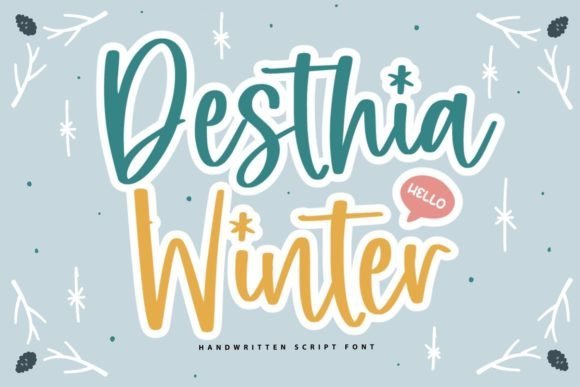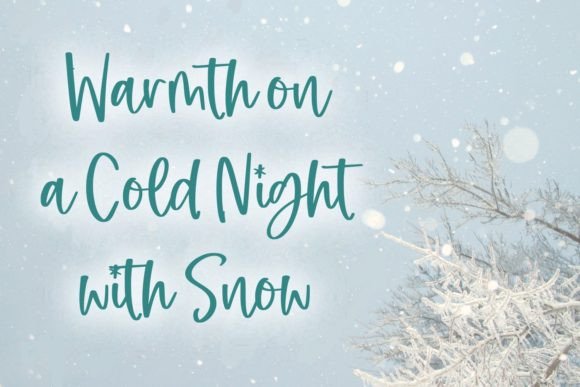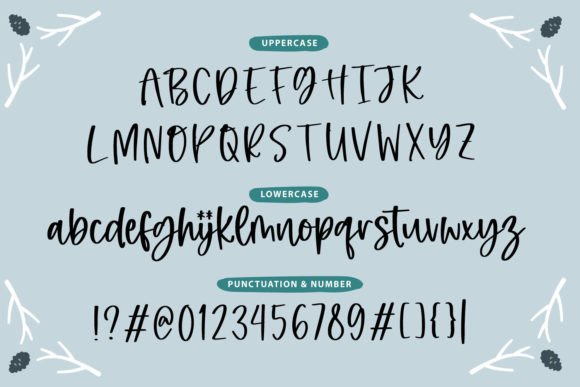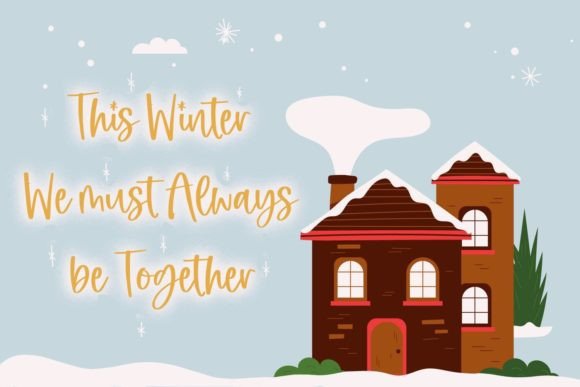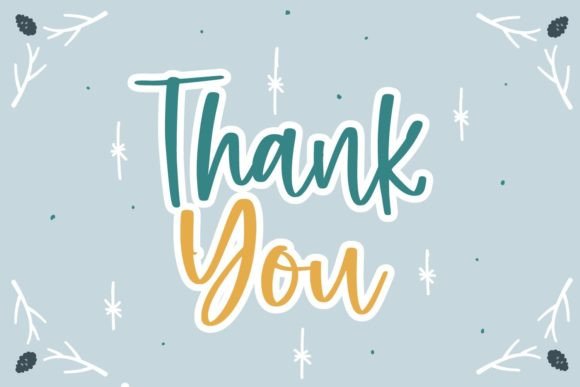
Unleash the Magic of Desthia Winter Font
Have you ever been stuck on a design project, staring at a blank page, and suddenly, the perfect idea strikes? The words flow effortlessly, and your creative vision comes to life. It’s moments like these that make us fall in love with the world of design. And, what if we told you that there’s a font that can make these moments even more special?
Meet Desthia Winter Font, a flowing handwritten font that adds an elegant touch to any project. Its distinct and timeless style makes it perfect for creating spectacular designs that leave a lasting impression. Whether you’re a seasoned designer or just starting out, this font is a valuable addition to your toolkit. With Desthia Winter Font, you can take your designs to the next level and make them truly unforgettable.
Desthia Winter Font Key Features
- Unique Characteristics: This font features a unique, hand-drawn design with intricate details and ornaments, adding a touch of elegance and sophistication to any design project.
Desthia Winter Font Review
Overall, I’m quite impressed with the Desthia Winter Font. It’s a beautiful, elegant script font that’s perfect for winter-themed designs, holiday cards, or any project that needs a touch of sophistication and whimsy. ✨
- Unique and stylish design: The Desthia Winter Font has a distinctive, flowing style that’s sure to grab attention.
- Perfect for winter themes: As the name suggests, this font is ideal for winter-themed designs, from snowflakes to hot chocolate.
- High-quality rendering: The font renders beautifully in a variety of sizes and resolutions, making it suitable for print and digital use.
However, there are a few limitations to consider. ⚠️
- Not ideal for body text: While the Desthia Winter Font is perfect for headlines and titles, it may be too ornate for body text, which could be difficult to read.
- Limited character set: The font’s character set is limited, which may cause issues when using special characters or punctuation marks.
The Desthia Winter Font is ideal for winter-themed designs, such as:
– Holiday cards and invitations
– Winter sports and activity promotional materials
– Snowy landscape photography and art
– Cozy and inviting branding and packaging